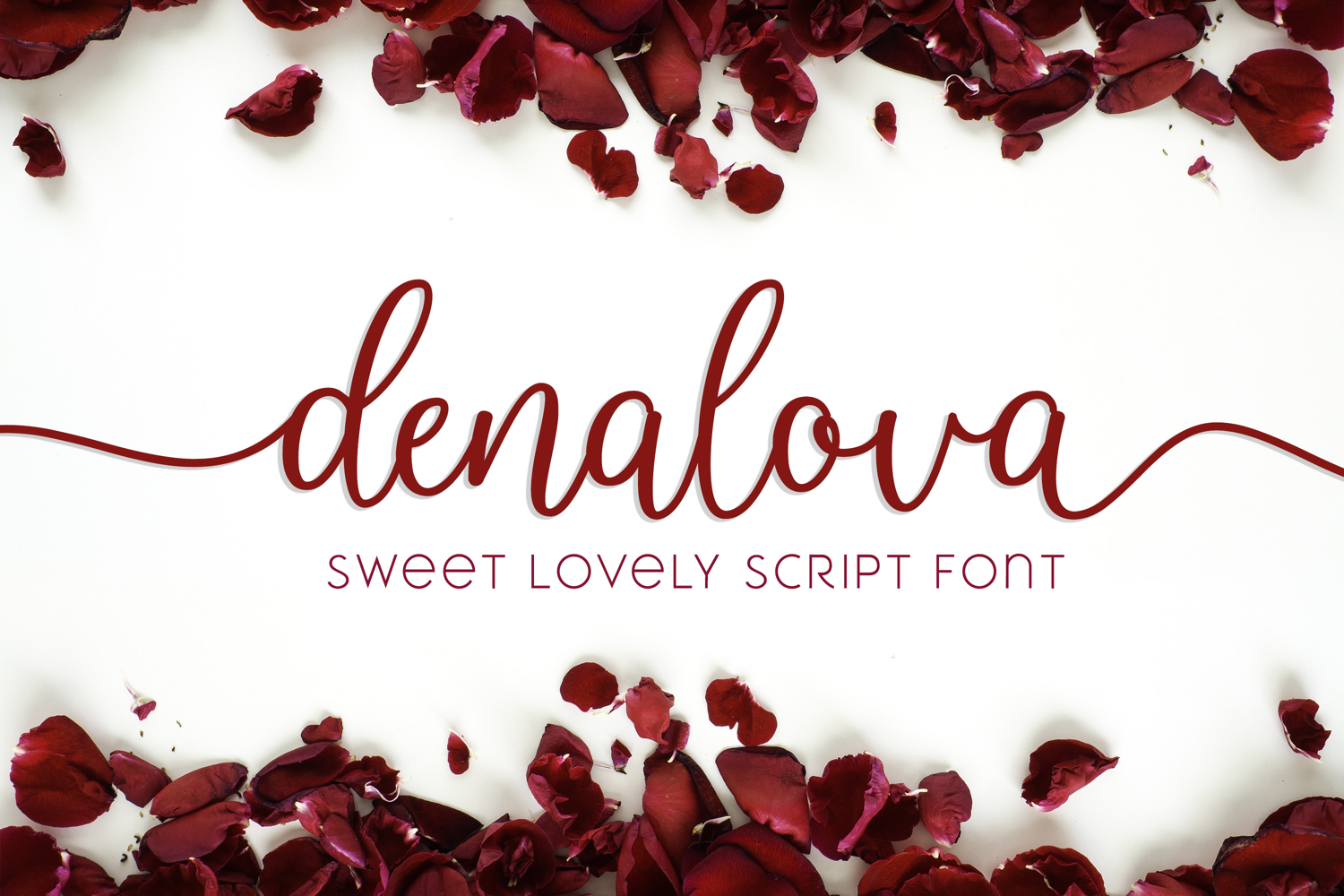
Created By Almarkhatype
Denalova - Sweet Lovely Script Font
Introducing Denalova – Sweet Lovely Script Font is a Quality script that is written casually and quickly
Denalova is perfect for homeware designs,branding projects, Logo, design, Quotes, Product packaging, Photography, Watermark.